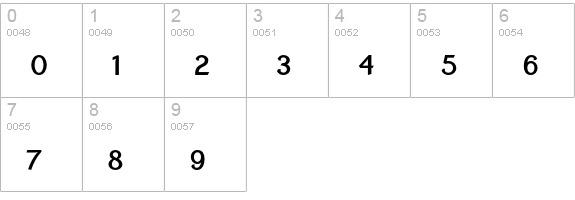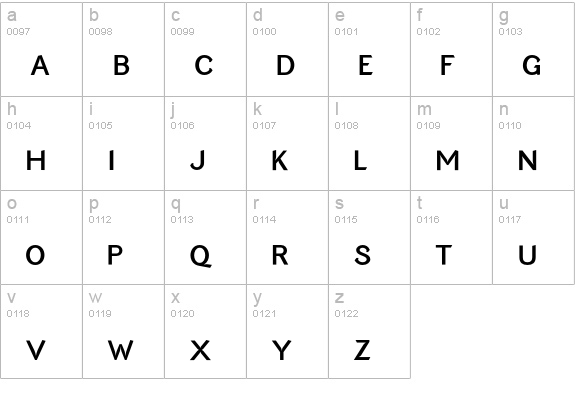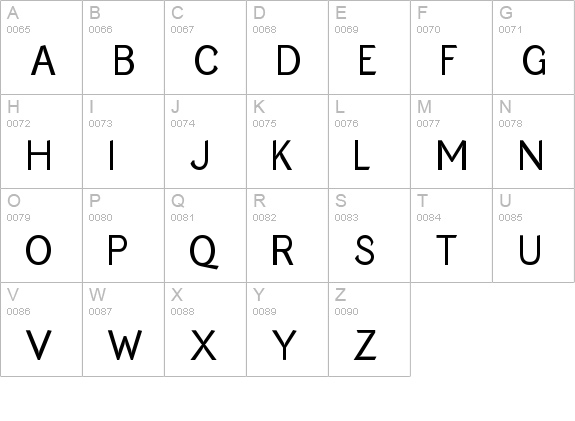
EquipoizeSans-Smallcaps Font Details
EquipoizeSans-Smallcaps font is a sleek and modern typeface that exudes sophistication and elegance. With its clean lines and subtle curves, this font is perfect for adding a touch of class to any design project. The small caps style adds a unique flair, making it stand out from other fonts. What makes EquipoizeSans-Smallcaps font even more appealing is that it is completely free to download at FontsMarket.com. This means you can easily access this stylish font for all your creative needs without having to spend a penny. Whether you're working on a professional presentation, designing a sleek logo, or creating eye-catching marketing materials, EquipoizeSans-Smallcaps font is sure to elevate your work to the next level. Don't miss out on this fantastic opportunity to enhance your designs with this beautiful and free font.